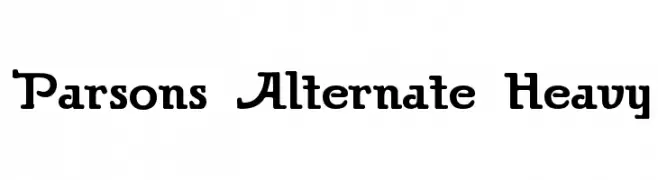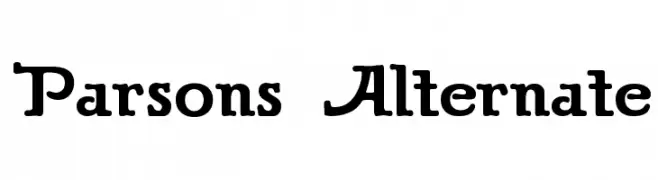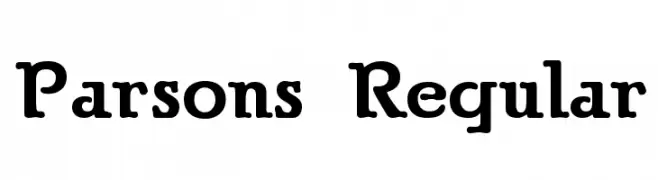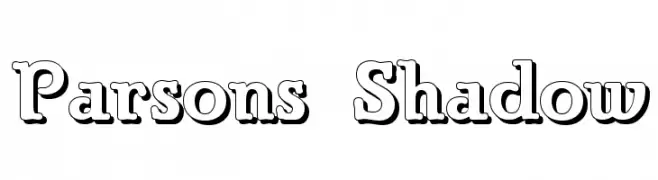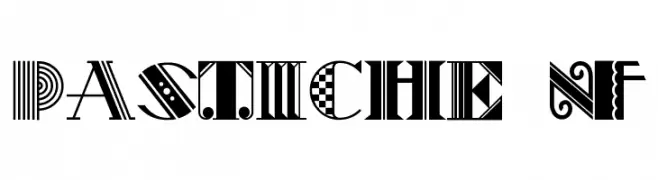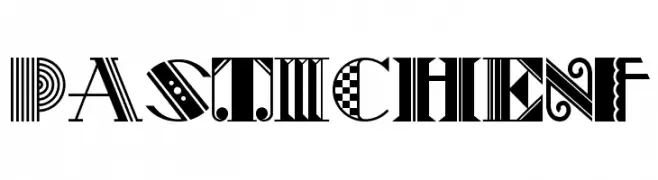
• Parseltongue
• Parsons Alternate
A bold, rounded serif font with a playful yet structured style.
• Parsons Alternate Heavy
( Fonts by Dieter Steffmann )
A bold, vintage-style font with rounded and angular elements, perfect for impactful designs.
• Parsons Heavy
( Fonts by Dieter Steffmann )
A bold slab serif font with thick strokes and rounded edges.
• Parsons Regular
A bold, vintage-inspired serif font with rounded edges and a compact style.
• Parsons Shadow
A bold, shadowed font with a three-dimensional effect, perfect for standout designs.
• Parsons Shadow Heavy
( Fonts by Dieter Steffmann )
A bold, shadowed font with a strong, three-dimensional appearance.
• Pastiche
( Fonts by Nick Curtis - www.nicksfonts.com )
A vibrant and eclectic font with unique, decorative characters.
• Pastiche NF
( Fonts by Nick Curtis - www.nicksfonts.com )
A vibrant, eclectic display typeface with Art Deco and vintage influences.
• PasticheNF
A vibrant and eclectic display font with unique decorative elements in each character.